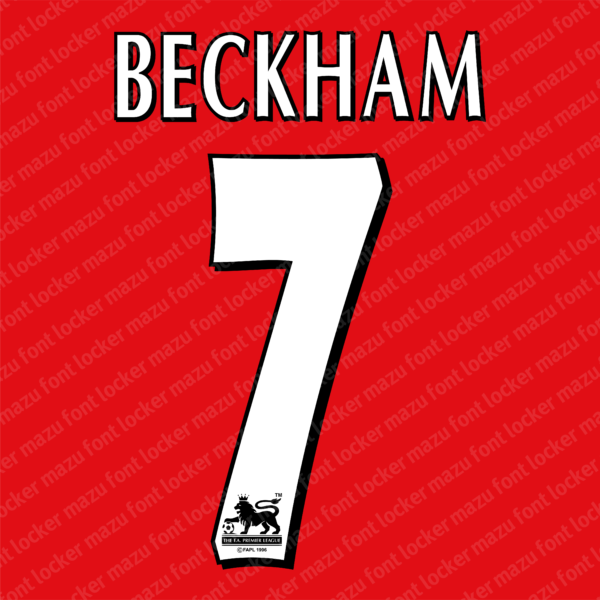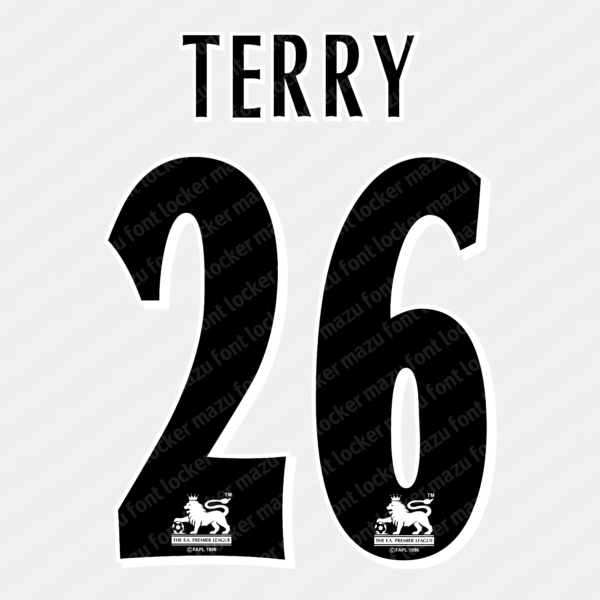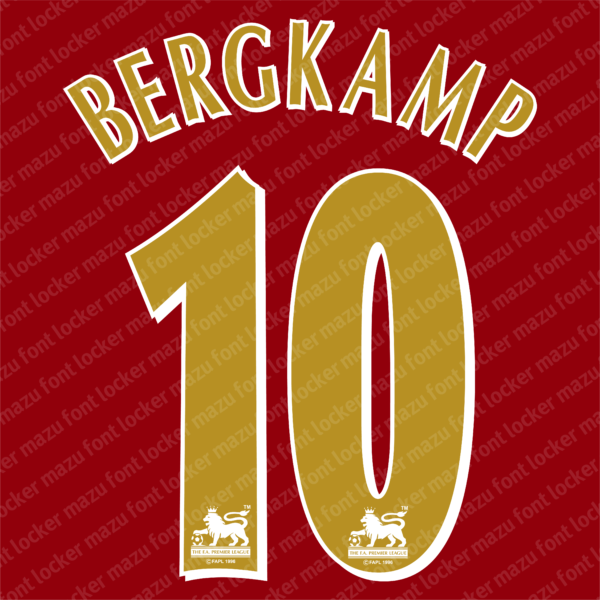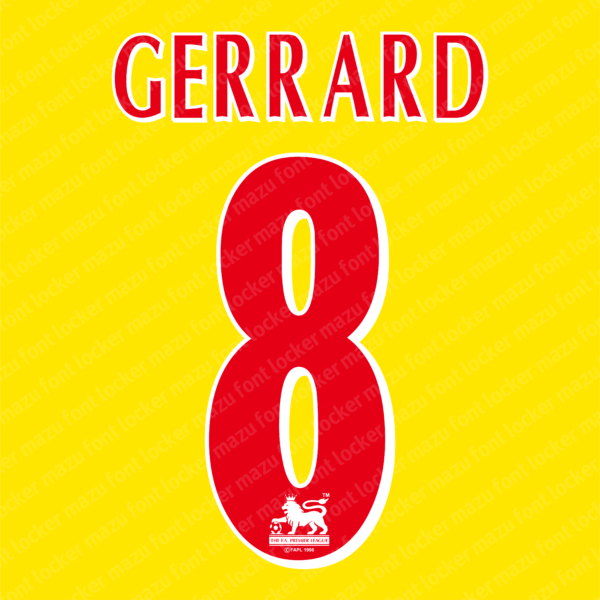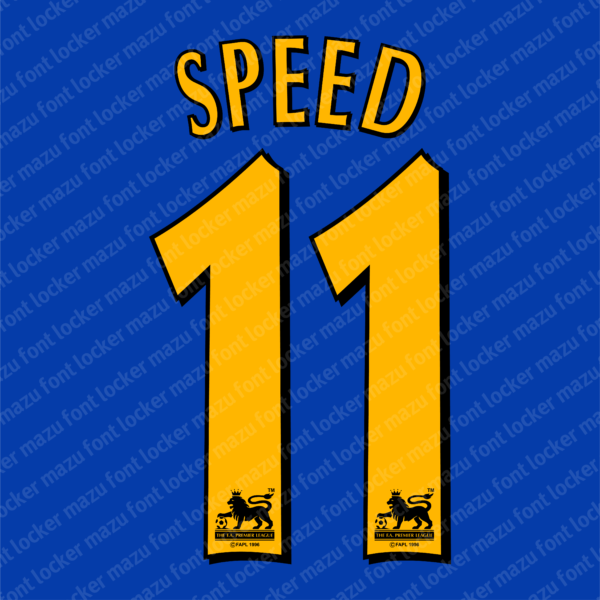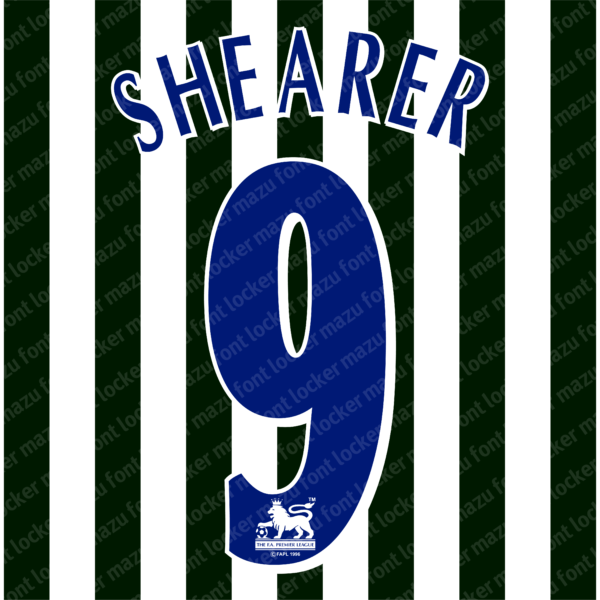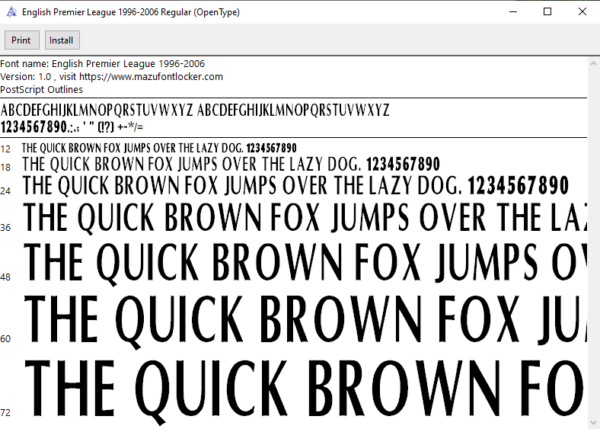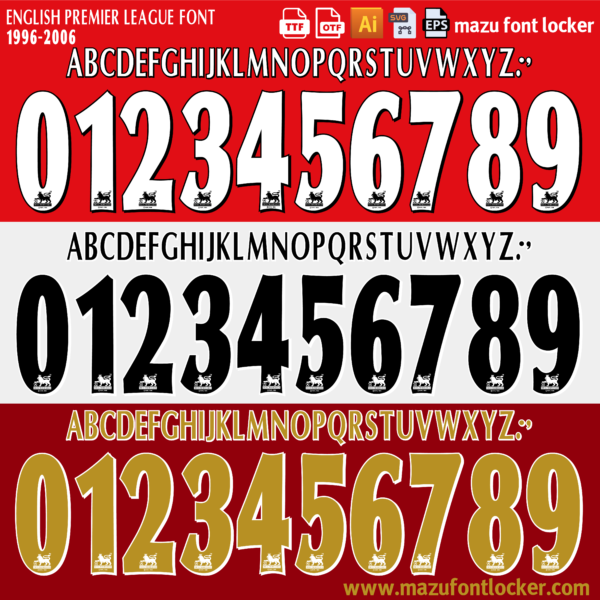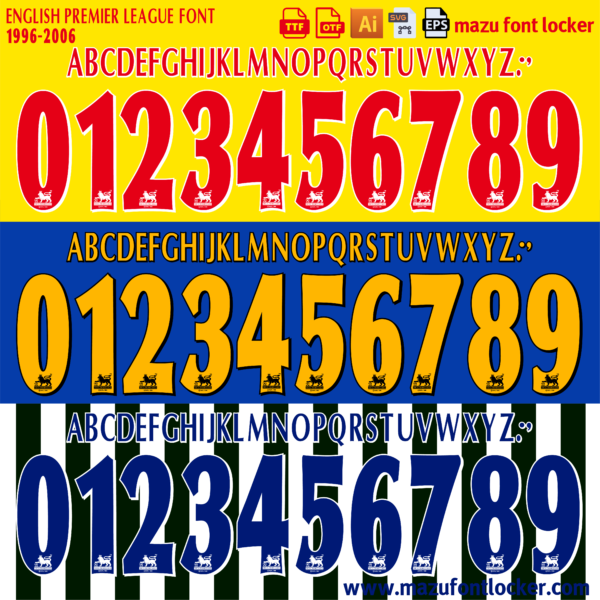
English Premier League 1996-2006 Font Vector – Legendary Golden Era Masterpiece
Download English Premier League 1996-2006 Font now and unleash the pure magic of football’s greatest era straight into your designs. This premium vector font perfectly captures the bold, iconic, and electrifying identity of the English Premier League during its unforgettable 1996-2006 golden period. Every letter and number is crafted with razor-sharp precision, classic curves, and powerful details that reflect the league’s explosive attacking style, legendary players, and unforgettable rivalries.
Whether you’re creating matchday posters, fan merchandise, custom jerseys, social media graphics, t-shirts, or premium digital artwork, this English Premier League 1996-2006 Font delivers professional quality with stunning vibrancy and maximum impact. The font masterfully combines retro charm with modern strength, making every headline roar with authentic Premier League nostalgia and intensity.
Elevate your projects with authentic 1996-2006 DNA and let your creativity roar like the Theatre of Dreams, Highbury, and Anfield in football’s golden age.
English Premier League 1996-2006 Font Vector
The English Premier League 1996-2006 Font is a premium, high-precision football jersey font vector meticulously engineered to capture the fearless energy, explosive passion, and electrifying identity of the English Premier League’s legendary 1996-2006 golden era.
Inspired by the mighty clubs and iconic, high-intensity performances throughout football’s most unforgettable decade, this font unleashes a bold, majestic, and devastatingly powerful presence that radiates unbreakable Premier League pride, rich heritage, and unstoppable attacking brilliance. Every letter and number has been painstakingly recreated with razor-sharp precision to embody the vibrant colors and classic identity of the era, relentless competitive mentality, and glorious legacy that makes the 1996-2006 period one of the most dominant and exciting forces in world football.
Feel the fire of the Theatre of Dreams, Highbury and Anfield. Ignite the passion. Unleash the legendary spirit of the Golden Era and the unstoppable power of English Premier League 1996-2006.
🔥 English Premier League 1996-2006 Font Features
• Authentic 1996-2006 English Premier League jersey lettering style
The authentic lettering style helps recreate the classic look of the English Premier League 1996-2006 kit with professional accuracy.
Unlike generic jersey fonts, this premium set is crafted with obsessive accuracy and authentic detail. Every curve, proportion, and style is faithfully recreated from the original match lettering used across the English Premier League during its legendary 1996-2006 golden era.